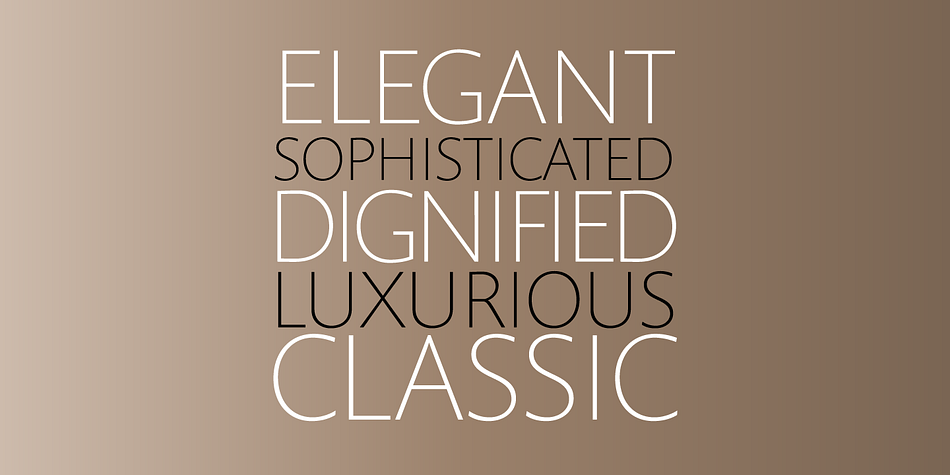
Prenton RP
Prenton RP is a sans serif font family. This typeface has twenty-one styles and was published by BluHead Studio.
Born of an award winning pedigree, Prenton is an elegant and meticulously drawn sans serif typeface by Roy Preston of Great Britain.
Born of an award winning pedigree, Prenton is an elegant and meticulously drawn sans serif typeface by Roy Preston of Great Britain. Perfect for intricate text settings, it is an extensive family of typefaces containing twenty-one weights in all. The ten OpenType Pro fonts are typographically rich collections of small caps, inferiors/superiors, numerous figure sets and fraction styles, and ligatures. There are Condensed and Ultra Condensed versions of the roman weights and a single Thin Display weight. This wide-ranging variety provides a solid foundation for lengthy and complex typographic layouts.